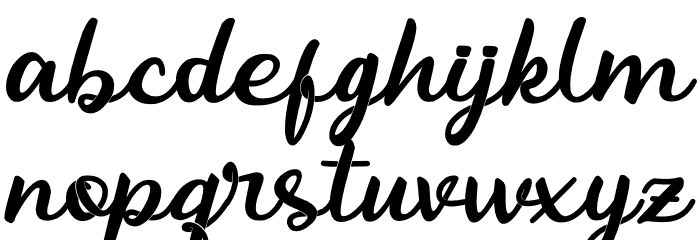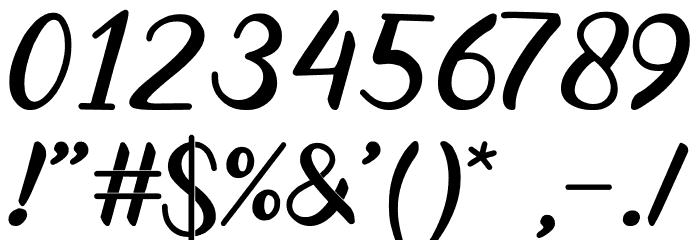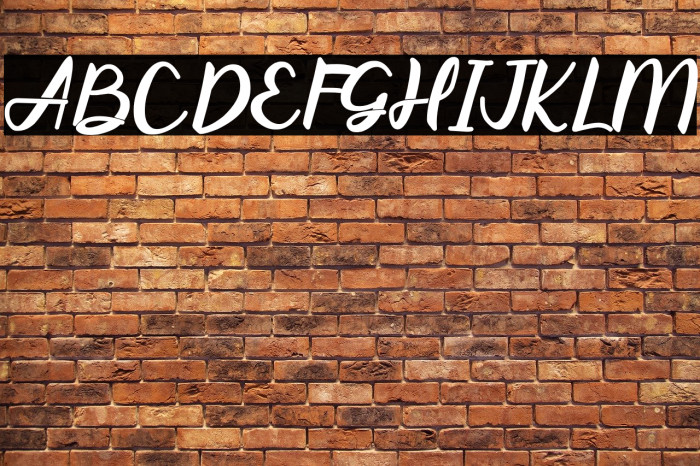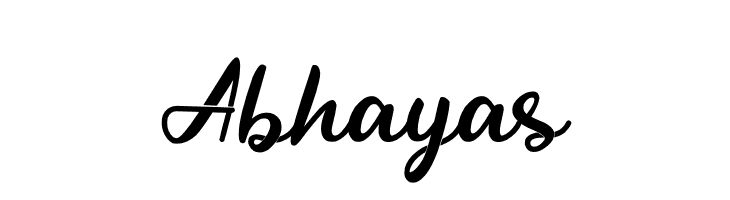
Abhayas Font
This font features a flowing, cursive style with elegant, sweeping strokes that give it a handwritten appearance. The uppercase letters are bold and expressive, while the lowercase letters maintain a consistent fluidity, enhancing readability. The numerals are well-integrated, matching the overall aesthetic with their smooth curves. Special characters are designed with the same attention to detail, ensuring they complement the letterforms. This font exudes a sense of sophistication and charm, making it suitable for a variety of creative projects.
A cursive, handwritten-style font with elegant, flowing strokes.
- Proposed Projects: Ideal for wedding invitations, greeting cards, personal branding, and elegant packaging designs.
- Overall Style: Elegant, Handwritten
- Use Case: Logos, Invitations, Decorative text